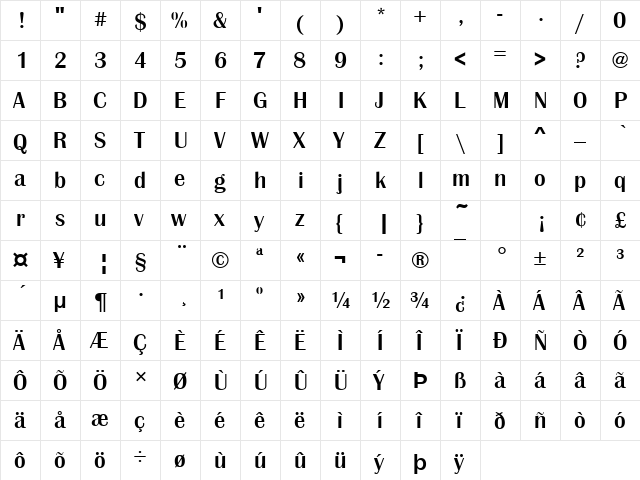
Britannic Becker Med Regular
Design Context for Britannic Becker Med Typeface
Britannic Becker Med takes a measured approach to typography — its balanced proportions and neutral character make it a reliable workhorse for both digital and print work.